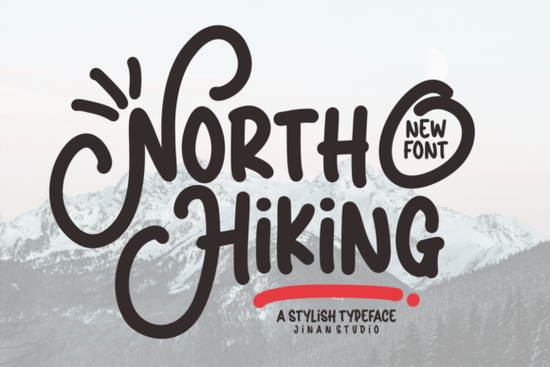
Looking for a clean, modern font that works across many different design projects? The North Hiking Font is a stylish sans serif typeface designed for versatility. Whether you're building a brand identity, designing greeting cards, or creating packaging for a small business, this font brings a fresh and approachable feel to your work. It's PUA encoded, which means every glyph and ligature is easy to access no special software tricks needed.
What Makes North Hiking Font a Good Pick for Everyday Design Work?
Not every font works well in multiple contexts. Some typefaces look great in a logo but fall apart in body text. Others are readable but lack personality. North Hiking Font sits in that useful middle ground it's modern and clean enough for professional branding, but it also carries enough warmth and character for creative, personal projects like greeting cards, invitations, and social media graphics.
As a sans serif font, it avoids the decorative strokes that can make serif fonts harder to read at smaller sizes. This makes it a solid choice for:
- Headlines and titles that need to grab attention quickly
- Packaging design where clarity matters on small labels
- Print-on-demand products like t-shirts, mugs, and tote bags
- Website headers and banners for a clean, professional look
- Branding projects for startups and small businesses
How Does It Compare to Other Sans Serif Options?
If you're building a font collection, it helps to understand how different typefaces complement each other. North Hiking Font works beautifully on its own, but pairing it with other styles can give your designs more range.
For example, if you're working on a project that needs a bit more edge, a grunge-inspired sans serif like Charm Grunge adds a textured, rough feel that contrasts nicely with North Hiking's clean lines. On the other hand, if your project calls for something more refined and luxurious, the Chopard typeface brings an elegant quality suited for high-end branding.
And for those times when you want something hand-drawn or artistic without going full script, the single-line sketch style in Norfleet Sketch offers a completely different aesthetic that pairs well with simpler sans serifs.
Is This Font Beginner-Friendly?
Yes. One of the practical advantages of North Hiking Font is its PUA encoding. If you're not familiar, PUA stands for Private Use Area. It means all the special characters, alternates, and ligatures are accessible through standard software even basic programs that don't normally support OpenType features.
This is especially helpful if you're:
- A crafter using Cricut Design Space or Silhouette Studio
- A small business owner designing your own marketing materials in Canva
- A print-on-demand seller who needs to work quickly across platforms
You won't need advanced design software to take full advantage of what this font offers.
Best Use Cases for Print-on-Demand Sellers
Print-on-demand is one of the areas where font choice directly affects sales. A design that looks great on a mockup but becomes hard to read on a printed product won't get repeat customers. North Hiking Font's balanced letterforms hold up well across different printing methods, including:
- DTG (direct-to-garment) printing on apparel
- Sublimation on mugs and drinkware
- Vinyl cutting for stickers and decals
The modern sans serif style also appeals to a wide audience, which means your designs won't feel too niche or trendy in a way that dates quickly.
Quick Checklist Before You Buy
Before adding this font to your toolkit, here's a quick rundown to make sure it fits your needs:
- Review the glyph set Look at the available alternates and ligatures so you know what's included
- Test it in context Try it on a sample project before committing to a full design system
- Consider font pairings Think about what secondary font you'll use for body text or supporting elements